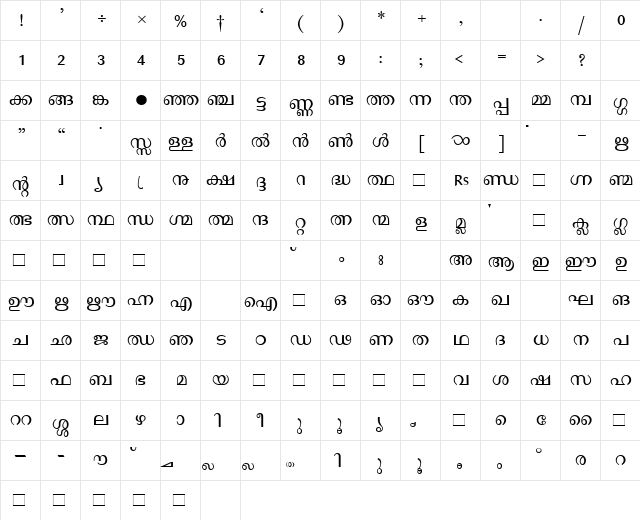
Manorama Regular
| Foundry | Malayala Manorama |
| Designer | Pugmarks Interweb |
Design Context for Manorama Typeface
Manorama is a composed and adaptable typeface that performs quietly and consistently across a wide range of design contexts.